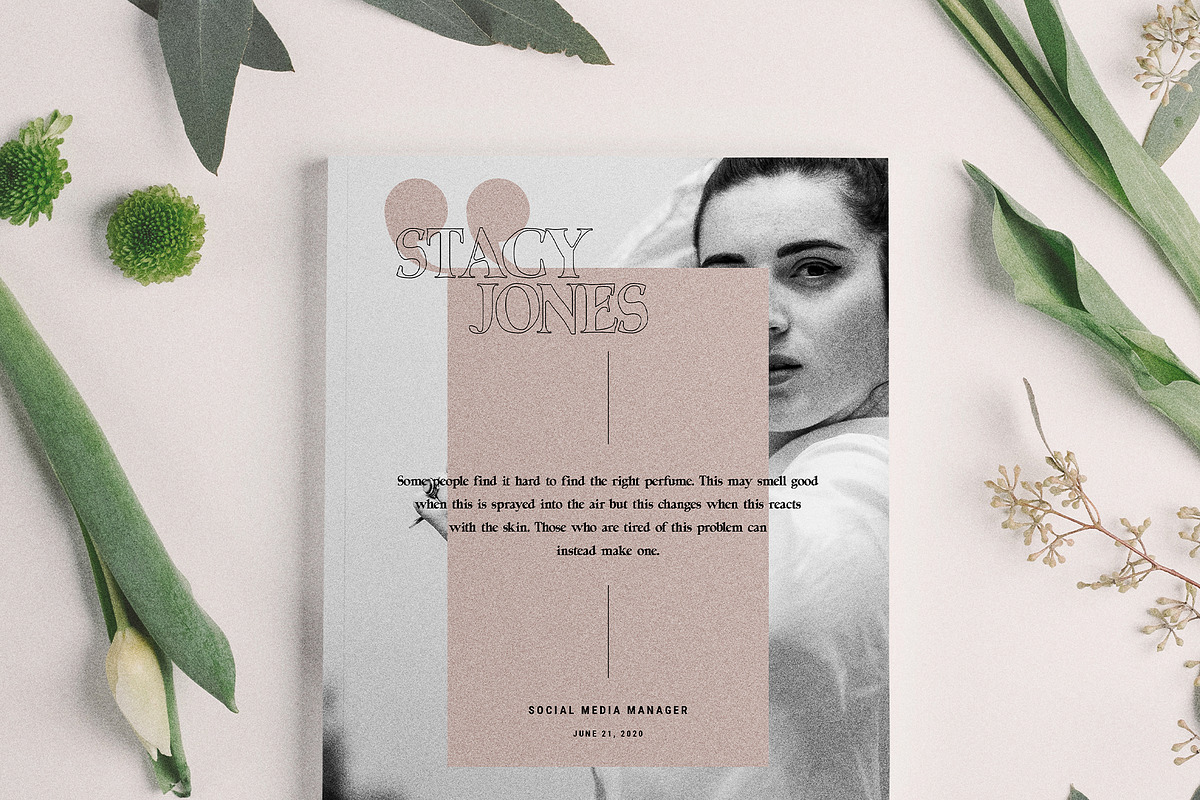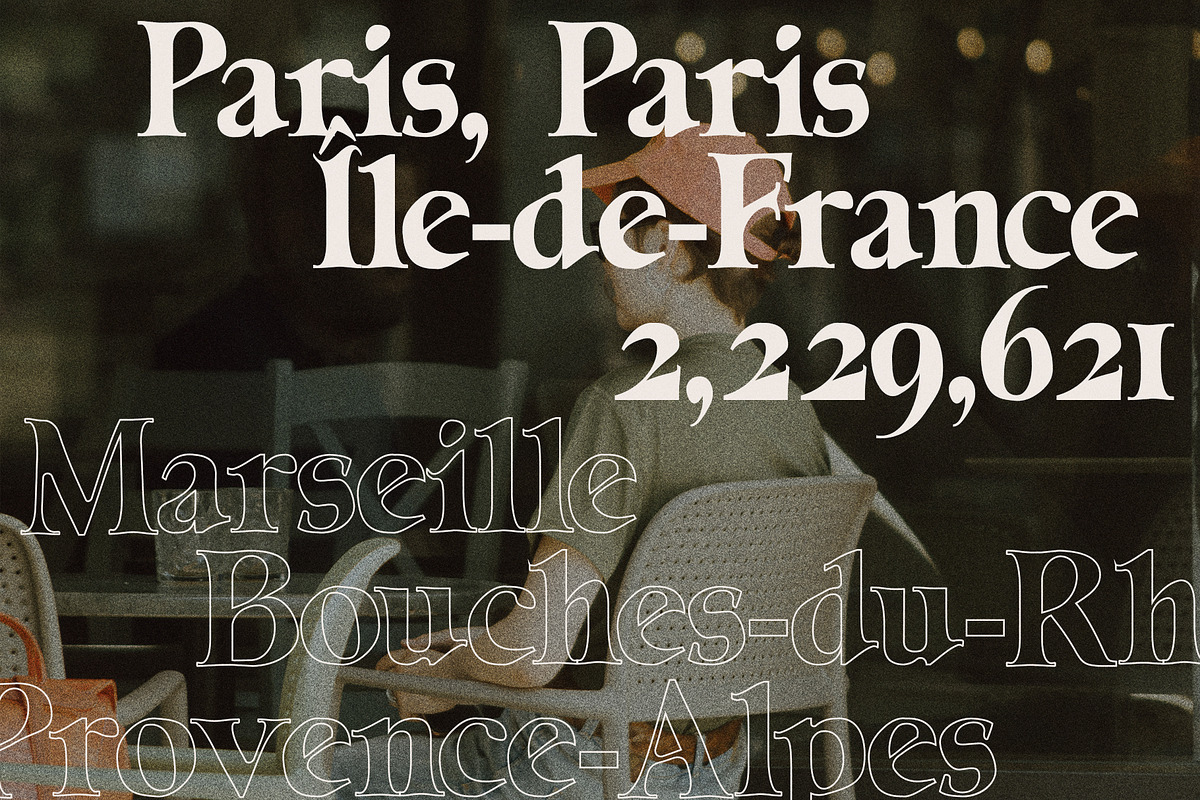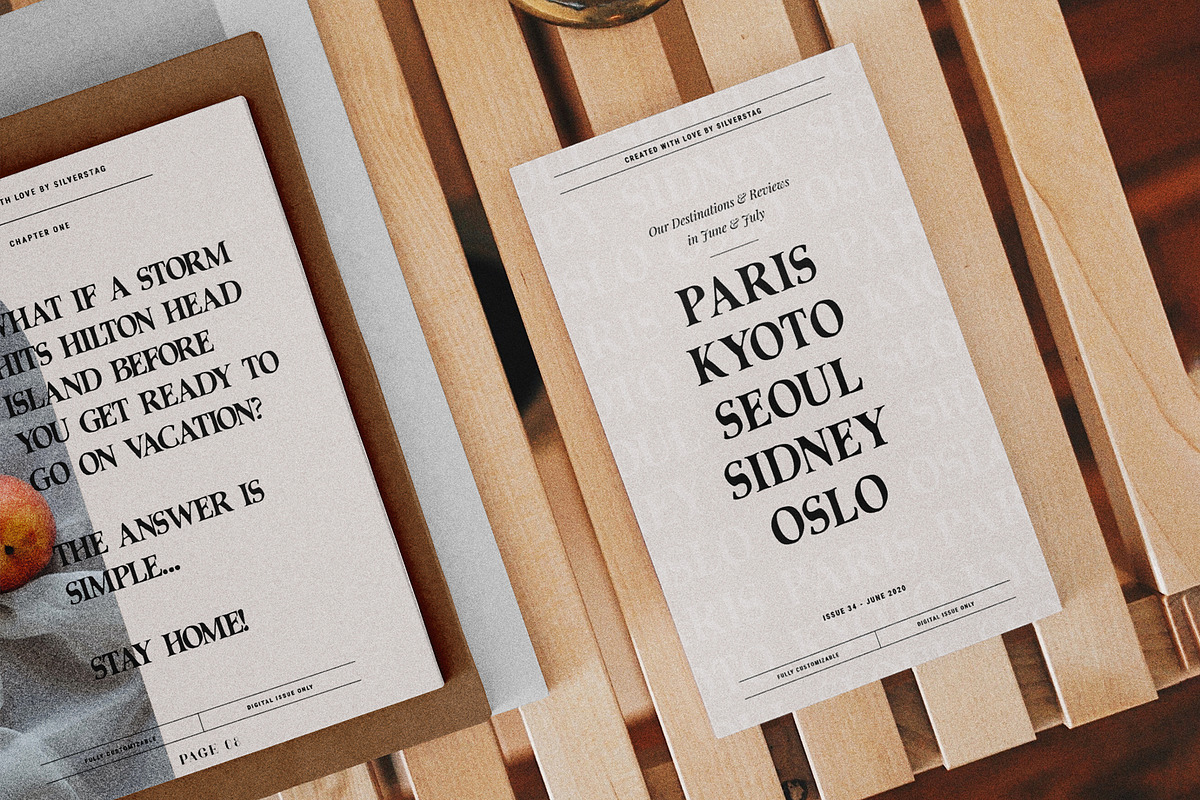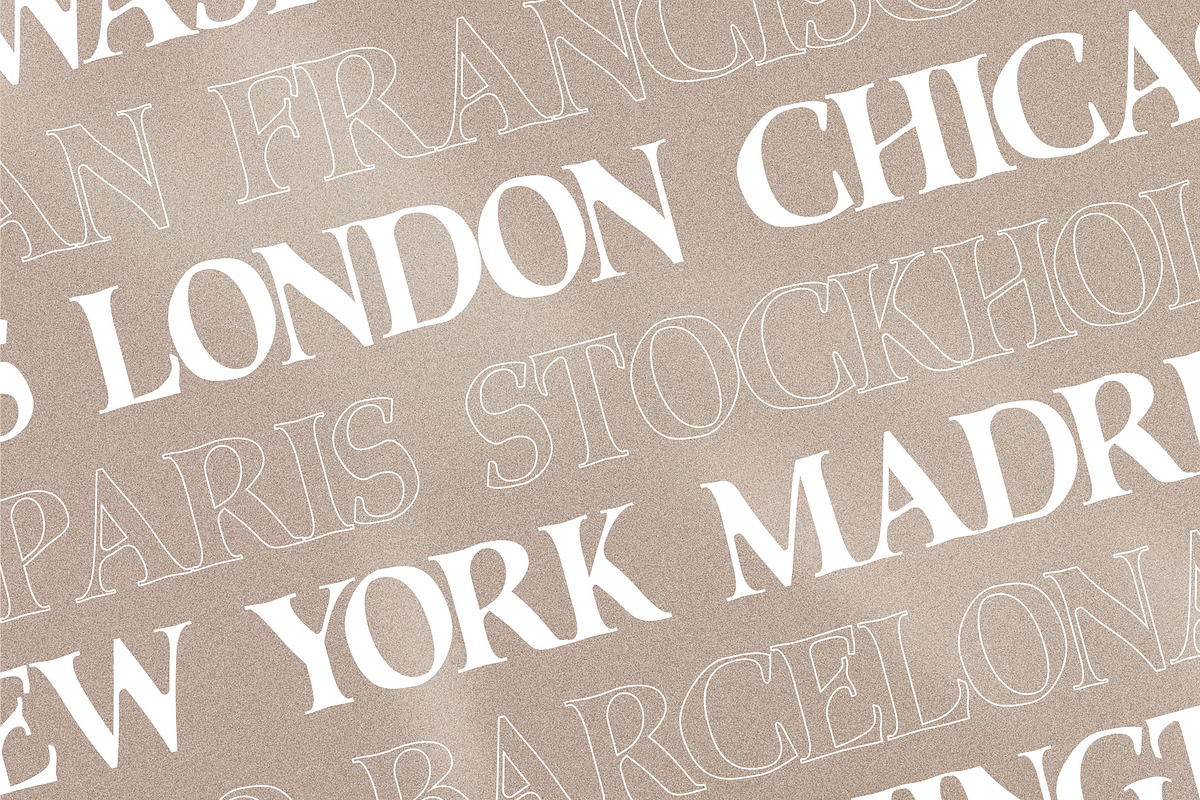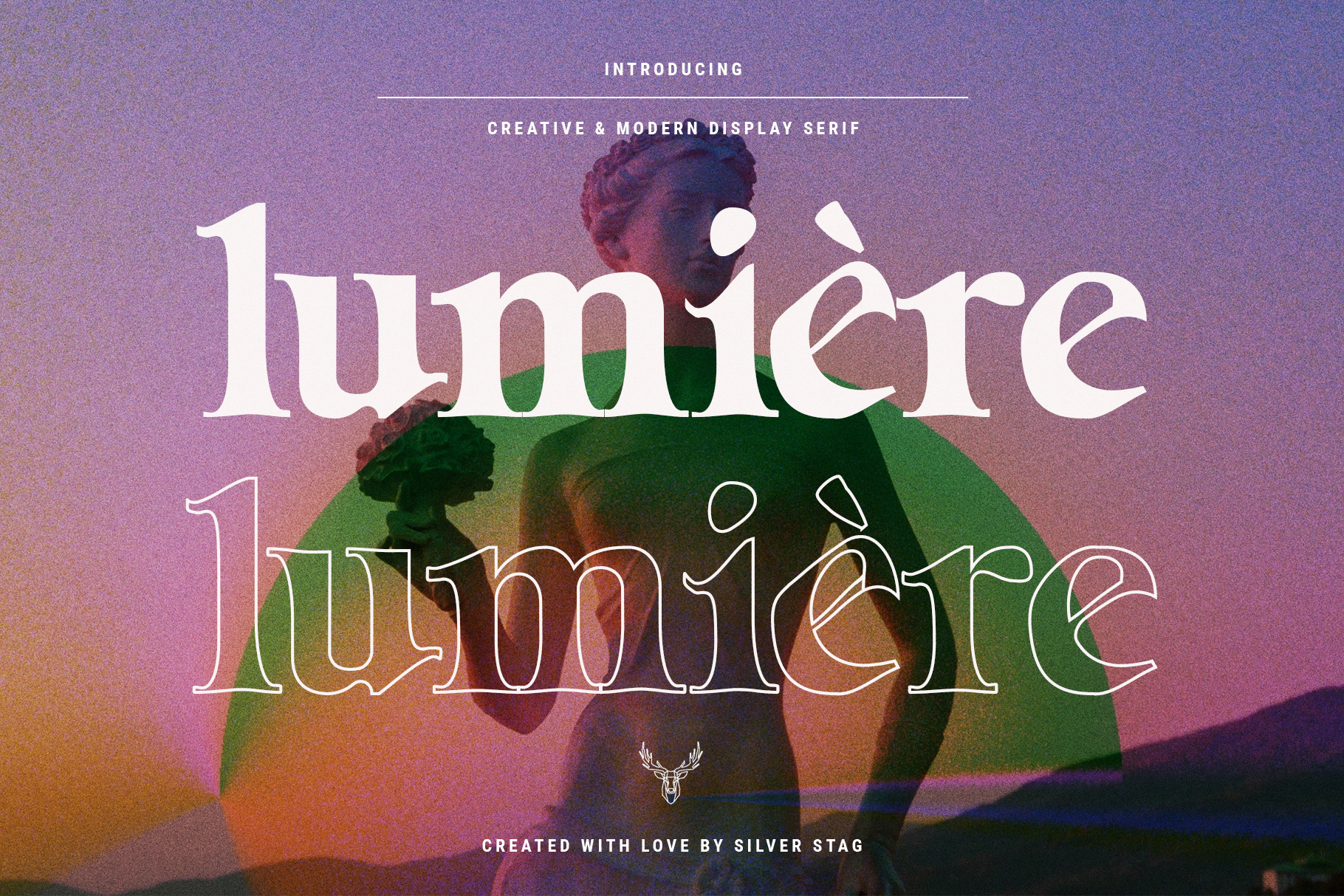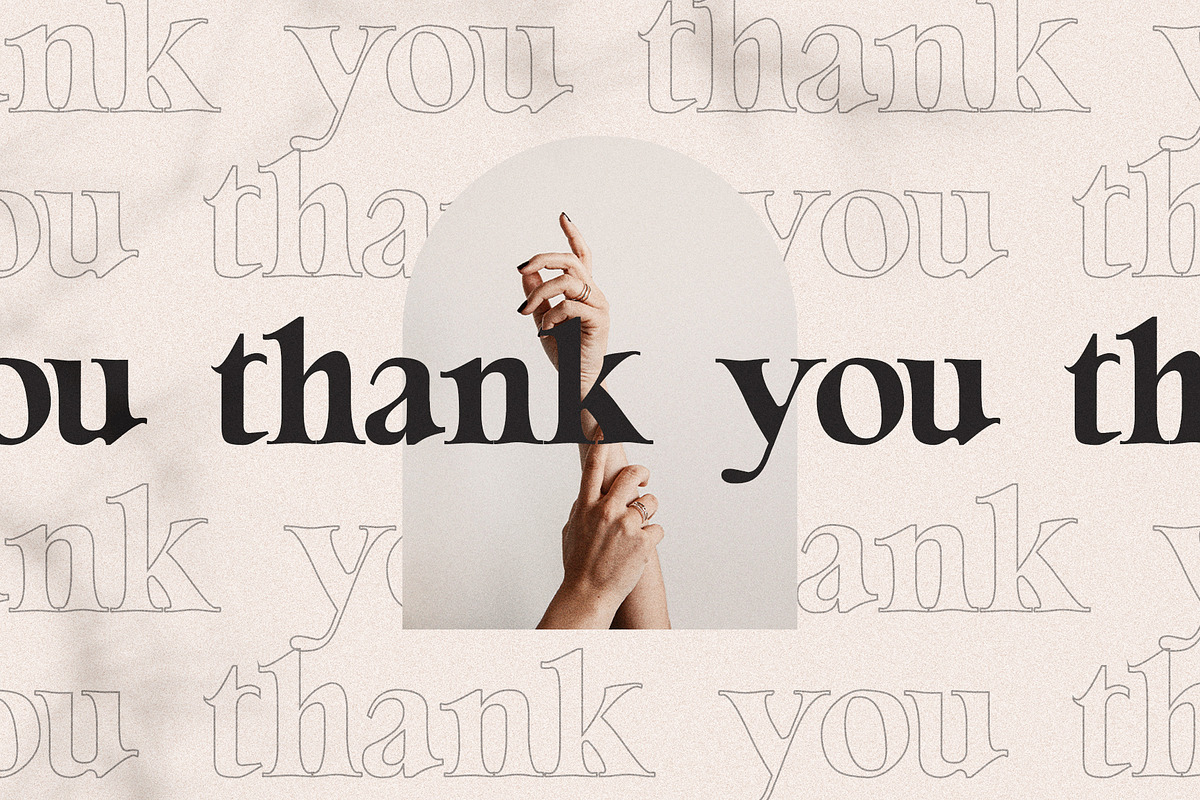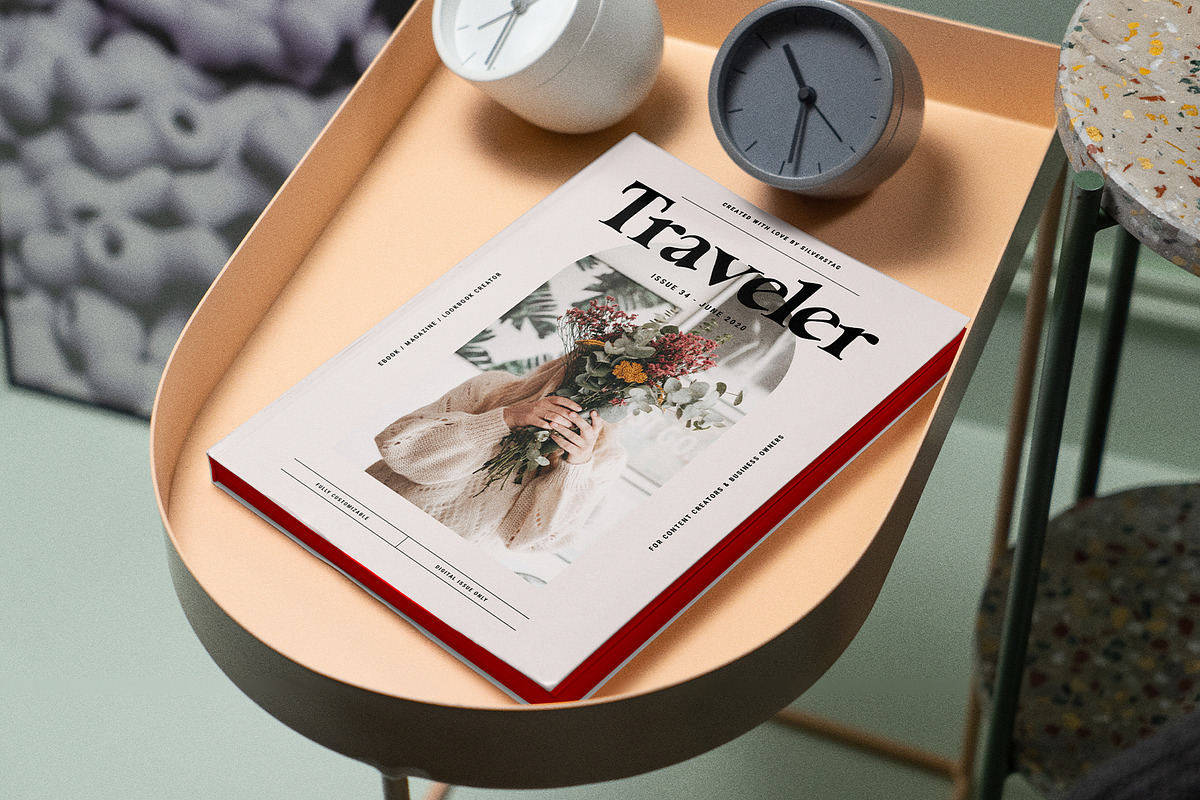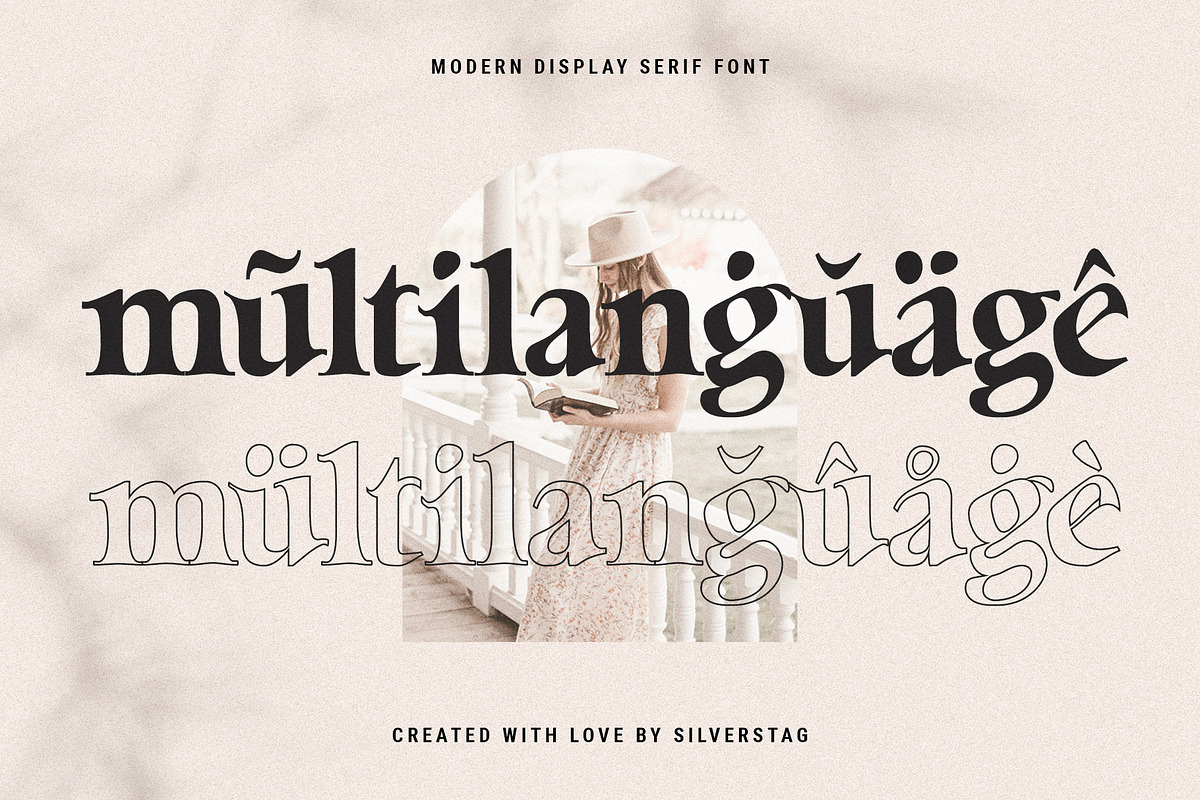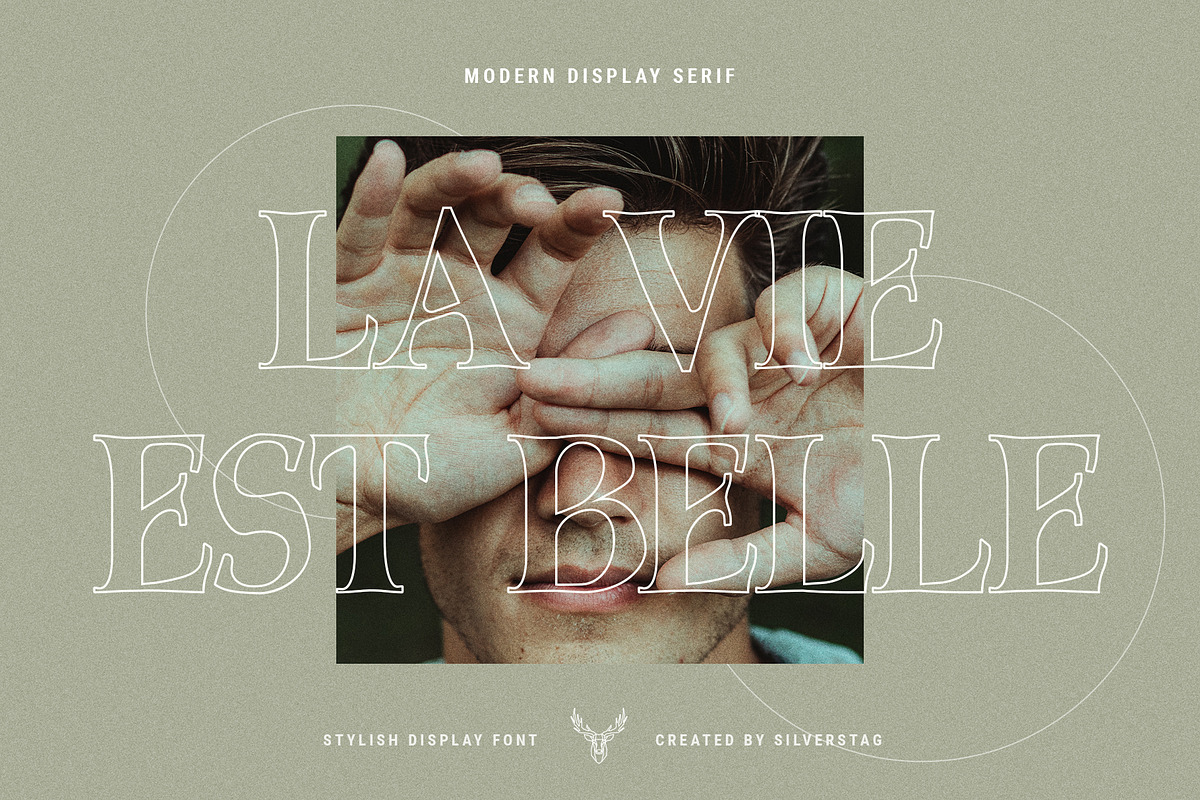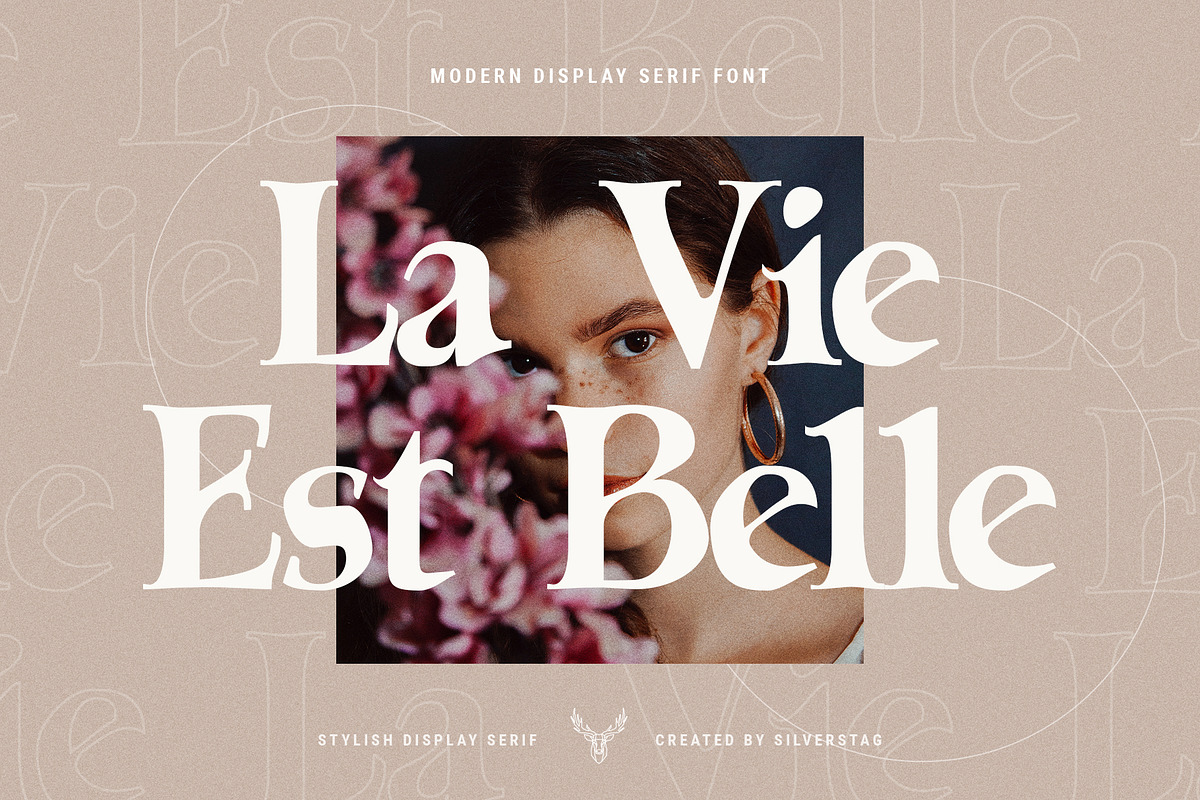
Lumière - Modern Display Serif Font
Lumière is a brand new unique display font I have been exploring and creating for quite some time now. I wanted to create a font that will work for everyone but at the same time offer unique ideas and elements. If you check out the screenshots above you will see you can use the font for your logo projects, website designs, magazines, and any other kind of graphic design.
- Lowercase and Uppercase letters
The following letters are included: A À Á Â Ã Ä Å C Ç D Ð E È É Ê Ë I Ì Í Î Ï N Ñ O Ø Ò Ó Ô Õ Ö U Ù Ü Ú Û W Ẃ Ŵ ẄẀ Y Ý Ÿ Ỳ Ÿ Æ Œ ß Þ þ and many many more, in uppercase and lowercase so skylar sans supports a huge number of languages.